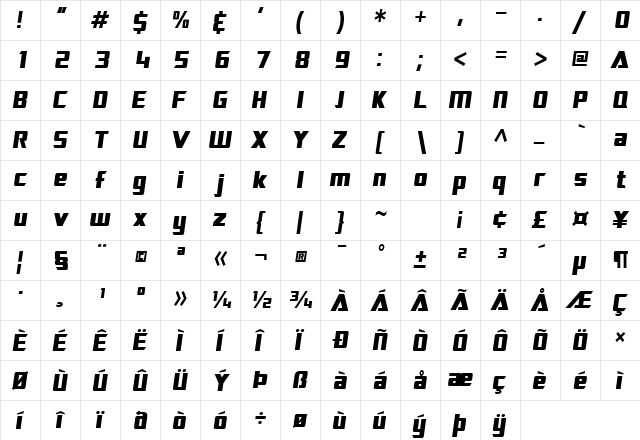
SF TransRobotics Oblique
| Foundry | ShyFoundry |
| Designer | Derek Vogelpohl |
Design Context for SF TransRobotics Typeface
SF TransRobotics offers clean, dependable letterforms without strong stylistic allegiance, making it a practical choice for designers who need flexibility. The dynamic lean of this cut emphasises speed and emphasis in any layout.
Pro Tip: Use SF TransRobotics for emphasis, pull quotes, and subheadings where its slanted energy can add rhythm to the layout.